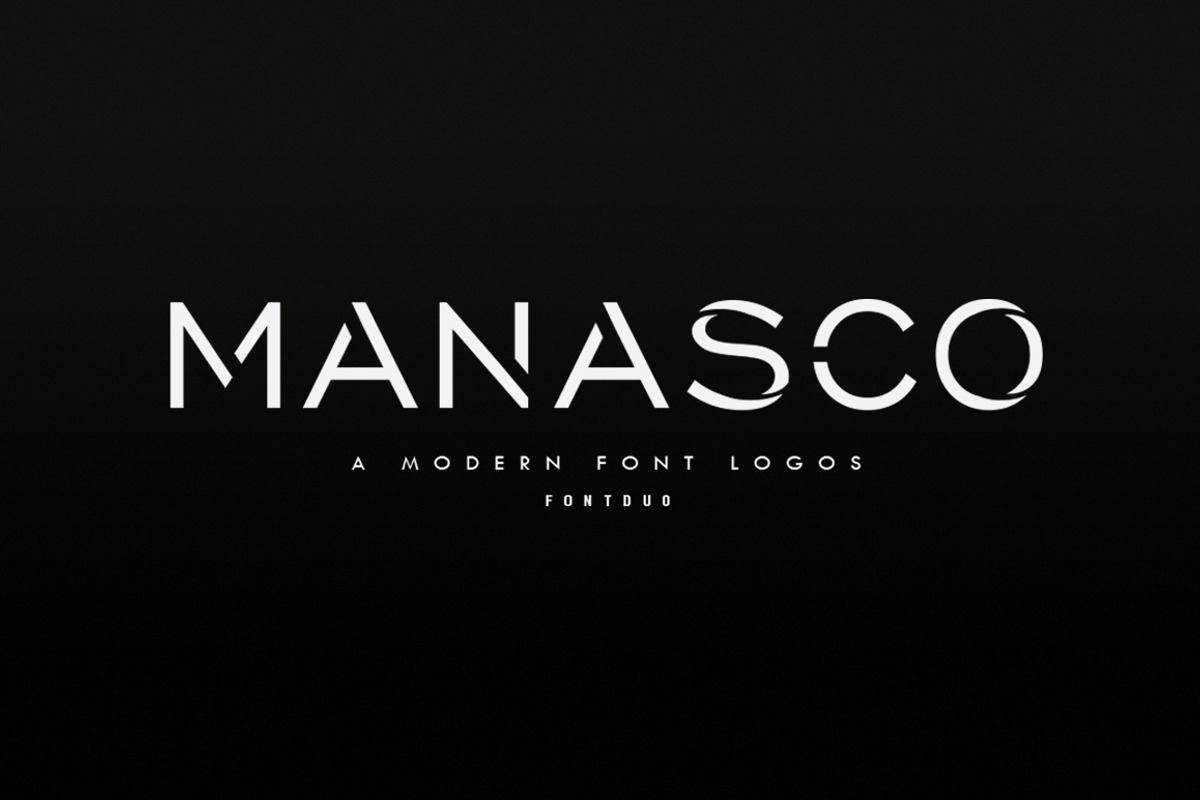
Manasco – A Modern Font for Logos Free Download is a sleek and minimalist typeface crafted specifically for branding and logo design. With its clean lines, geometric precision, and contemporary aesthetic, this font is ideal for creating professional logos, business cards, website headers, and packaging that demand a polished and modern look.
Manasco – A Modern Font for Logos Free Download offers strong visual impact while maintaining clarity and balance. Whether you're building a tech startup brand, a lifestyle label, or a creative portfolio, Manasco gives your typography a refined and forward-thinking edge.